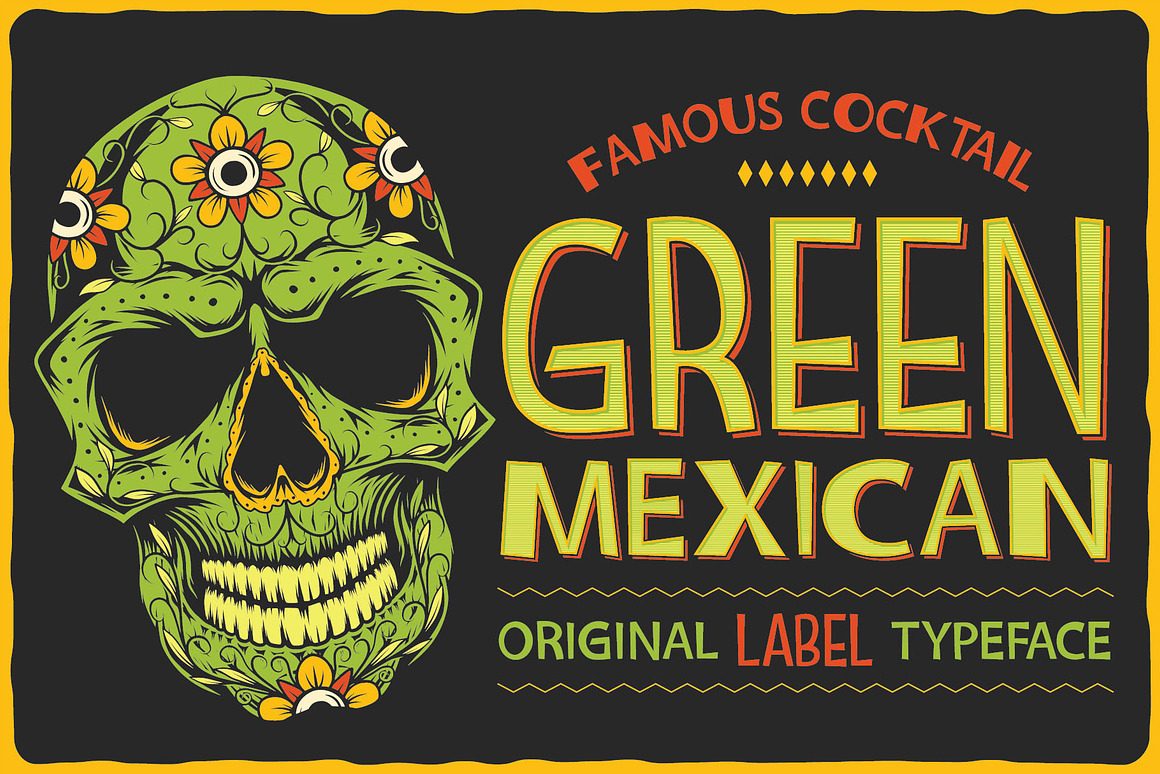
Green Mexican Typeface
Green Mexican Typeface is perfect for Mexican restaurant branding, Cinco de Mayo celebrations, taco truck signage, Latin festival promotions, mariachi band merchandise, cantina bar logos, traditional Mexican food packaging, cultural heritage museums, Day of the Dead events, and authentic Mexican market advertising.
What makes Green Mexican Typeface so exciting is its vibrant ability to capture the rich cultural heritage and festive spirit of Mexico through bold, colorful letterforms that seem to pulse with the rhythm of traditional mariachi music and celebrate the warmth of Mexican hospitality. This dynamic typeface draws inspiration from the verdant landscapes and lush traditions of Mexico, featuring characters that embody the passionate energy and cultural pride found in authentic Mexican art and celebration. The font's spirited design elements perfectly balance traditional heritage with contemporary appeal, making it an indispensable choice for projects that honor Mexican culture and connect with audiences seeking authentic cultural experiences.
Green Mexican Typeface comes in multiple font families including Regular, Bold, Light, Fiesta, Decorative, Condensed, Extended, and Traditional variations. Each family member maintains the core Mexican-inspired characteristics while offering different celebration levels and stylistic approaches to suit various cultural design requirements.
The festive design elements in Green Mexican Typeface make it particularly suitable for hospitality businesses and cultural organizations celebrating Mexican heritage, where authenticity and joyful representation create memorable experiences. Its energetic letterforms maintain excellent readability while preserving the cultural vibrancy that appeals to audiences seeking genuine Mexican cultural celebrations and traditional experiences.
Cultural marketing professionals recognize how Green Mexican Typeface transforms ordinary promotional text into festive invitations to authentic Mexican experiences. The typeface's lively character set includes special cultural symbols and decorative elements that enhance the overall Mexican fiesta atmosphere of any campaign.
For creative professionals serving Mexican restaurants, cultural festivals, and Latin American brands, Green Mexican Typeface serves as the perfect tool for creating memorable visual identities that capture the essential joy and cultural richness of Mexican heritage while celebrating the vibrant traditions that make Mexican culture beloved worldwide.